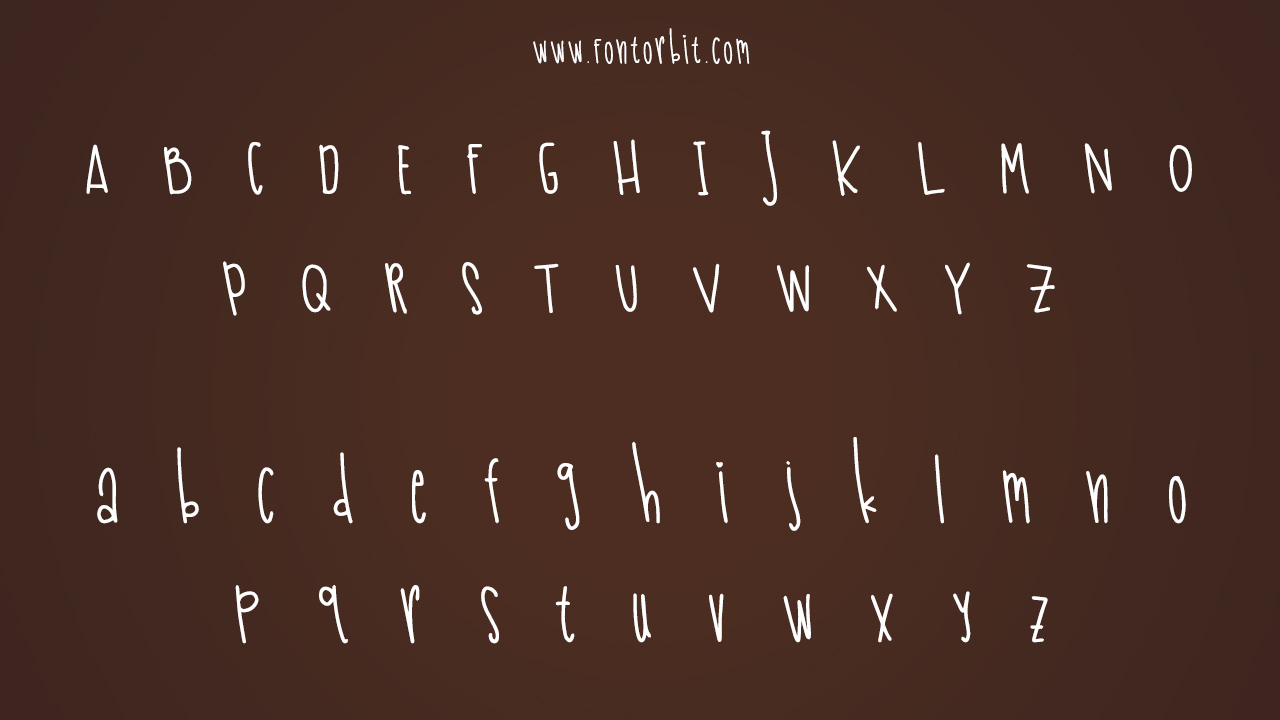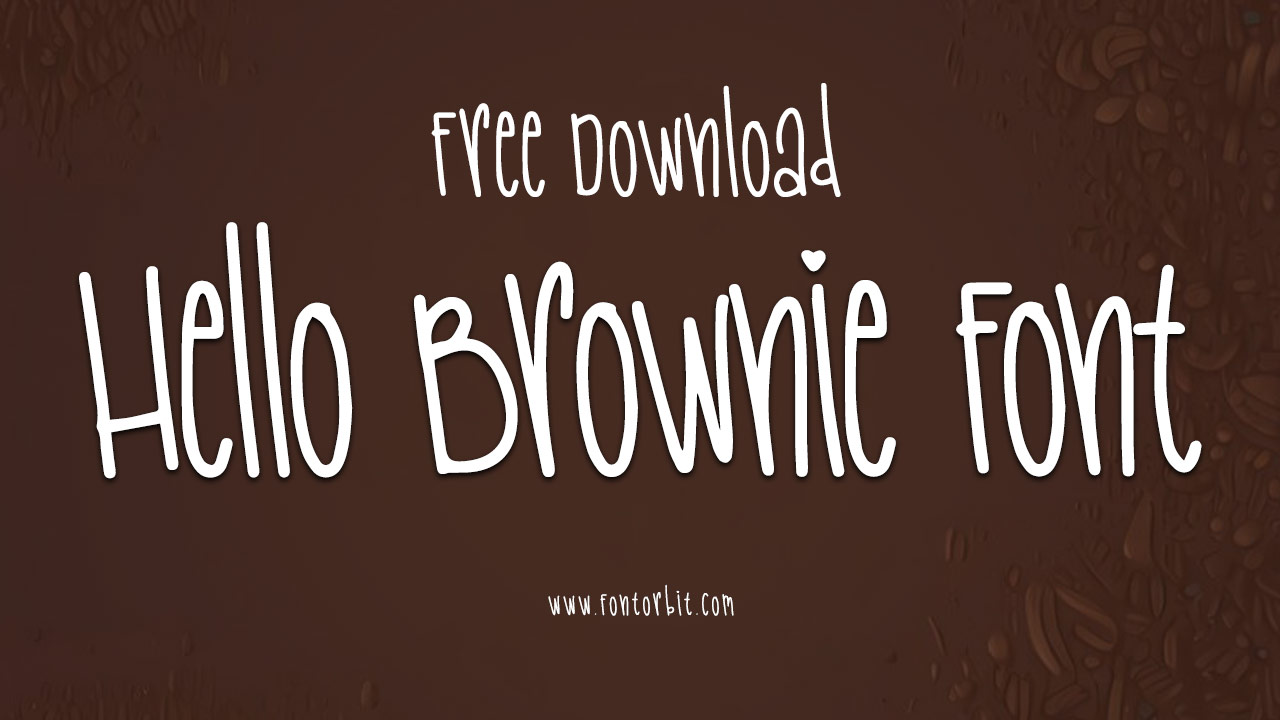
Hello Brownie is a charming handwritten font designed by Ocean Studio – Laire Banyu Sandi Pawenang.
Published in 2021, it belongs to the Script font family and is perfect for adding a playful and casual feel to your design projects. This font is widely used in branding, invitations, and creative products.
Hello Brownie Family Includes
The Hello Brownie font family is versatile and has multiple styles, making it ideal for various projects. It includes the following variations:
a. Hello Brownie Regular
Notable Uses Of Hello Brownie
This font is best used to craft a friendly and approachable project vibe. Notable uses include:
- Greeting cards
- Wedding invitations
- Branding materials
- Social media posts
- Merchandise design
Hello Brownie is perfect for any project that requires a personalized, hand-crafted aesthetic. Ideal occasions to use this font include:
- Invitations for birthdays, weddings, or baby showers
- Logos and branding for small businesses
- Social media graphics
- Posters, flyers, and product packaging
Hello Brownie is a fantastic choice for creatives looking to add a playful, hand-drawn touch to their work. Its versatility, especially with the Doodle pack, makes it stand out in branding, invitations, and personalized stationery.
2.Can I Use Hello Brownie For Branding?
Absolutely! Its handwritten style is perfect for unique brand identities.
5.Is Hello Brownie Multilingual?
It supports a wide range of Latin-based languages.